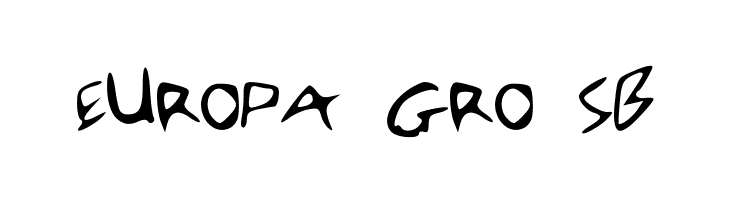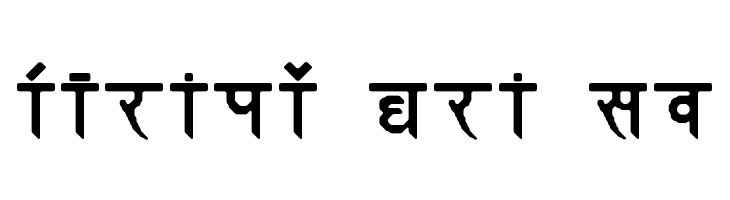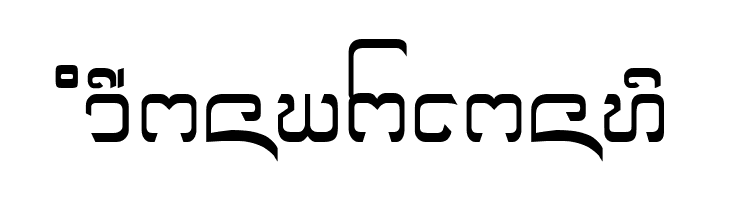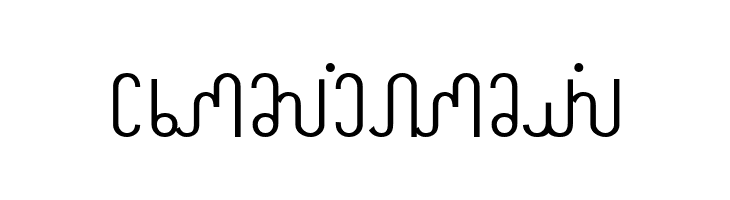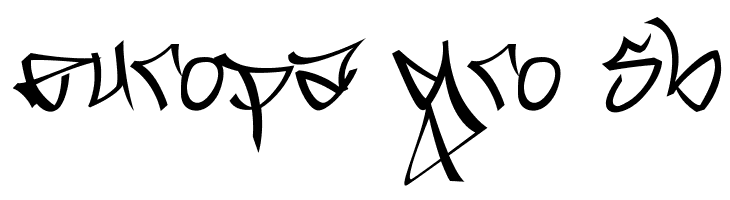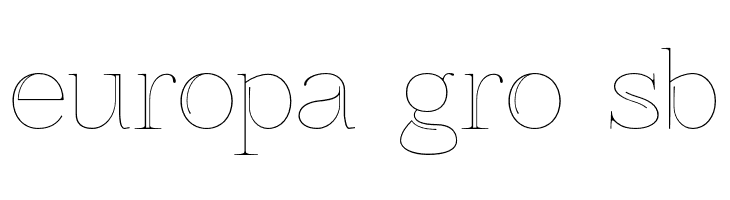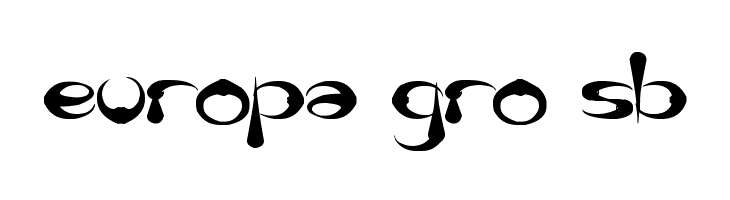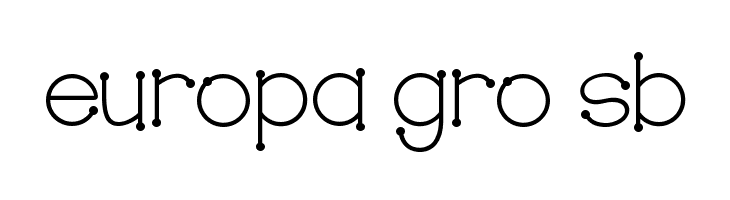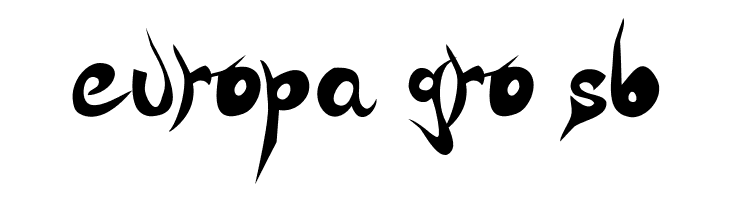
A bold, geometric font inspired by traditional scripts with sharp, angular characters.
A bold, geometric, decorative typeface with rounded corners and stylized curves.
A geometric, modular, monolinear decorative font.
A dynamic graffiti-style font with bold, angular strokes and sharp edges.
A playful, dot-accented font with a modern and whimsical style.
A bold, edgy font with sharp, angular lines and dramatic curves.